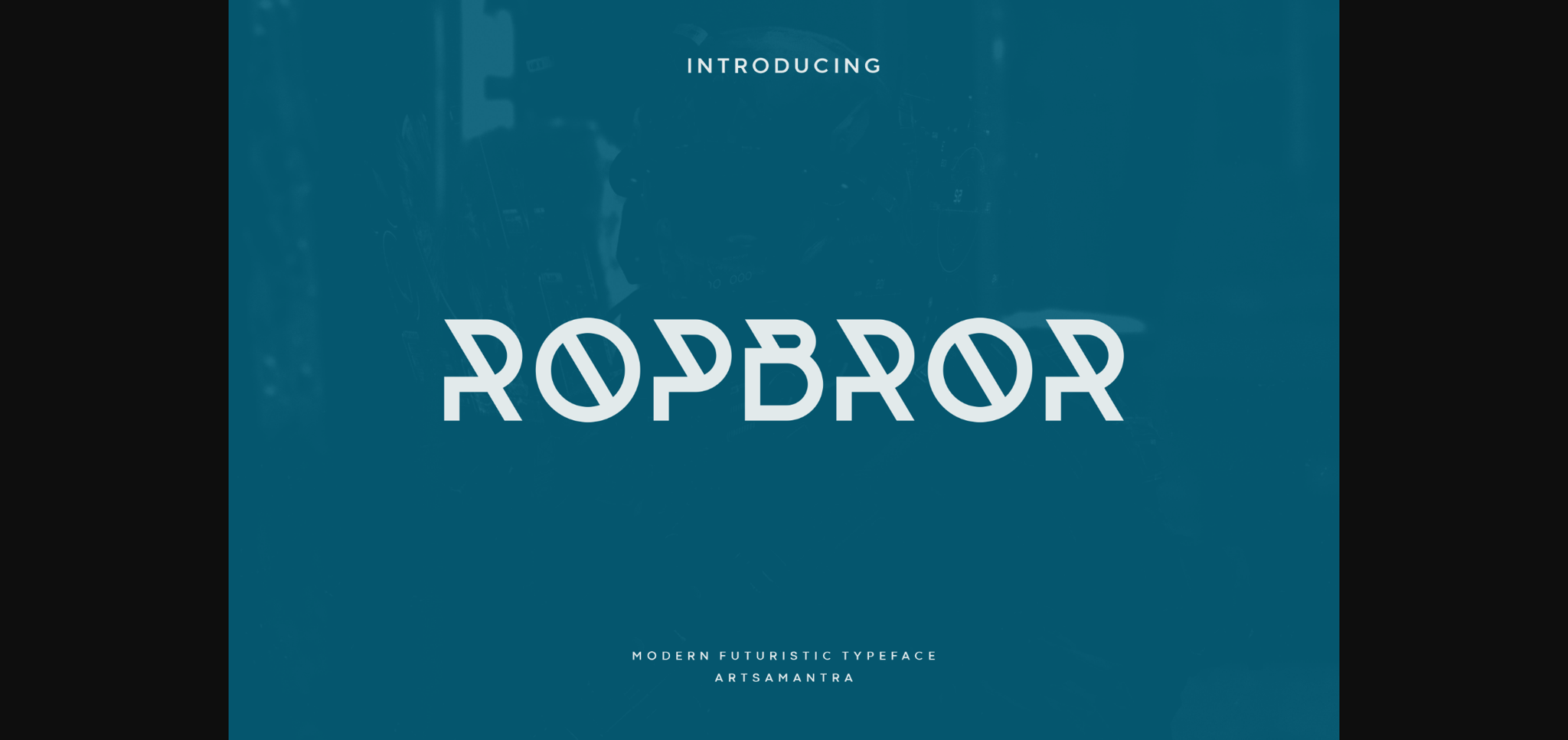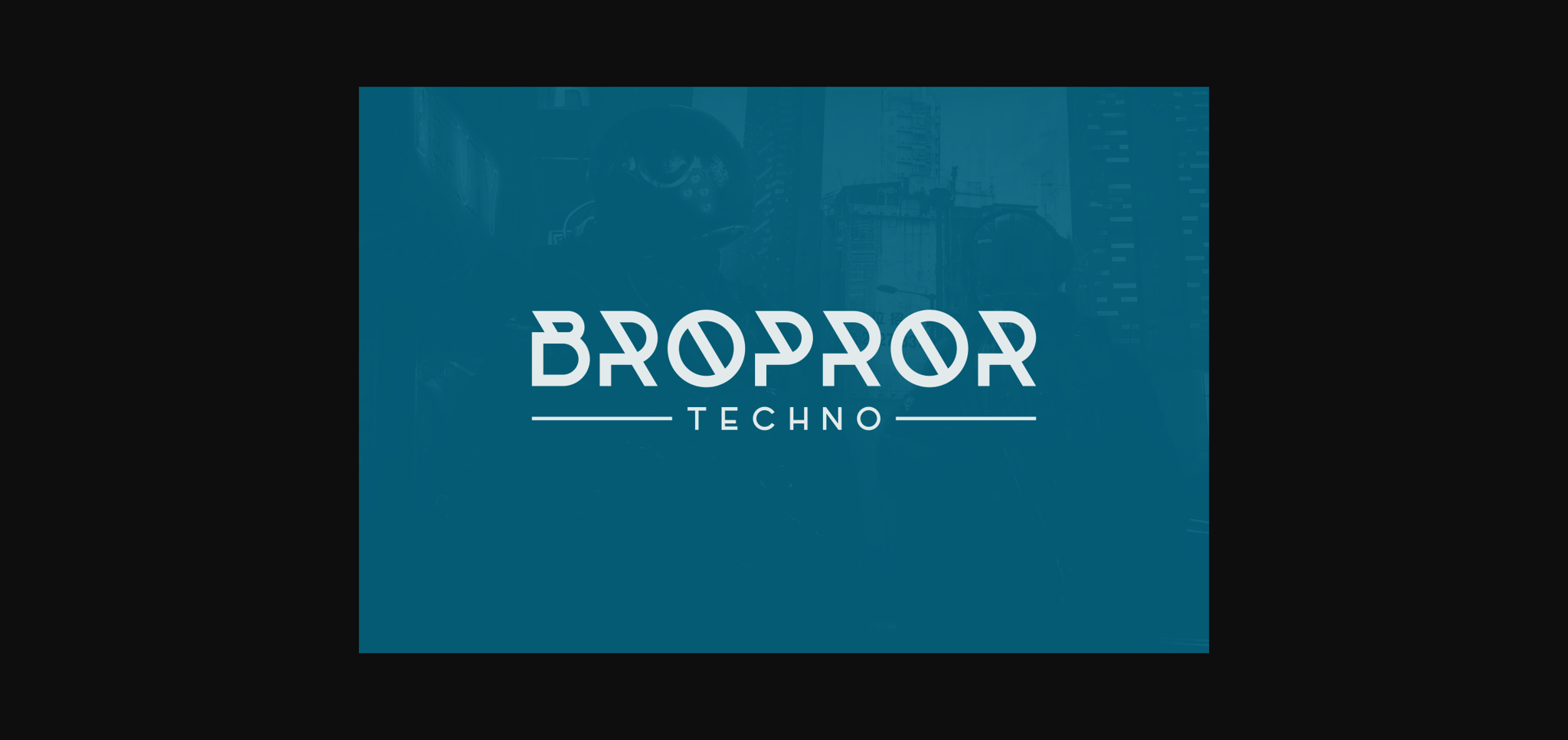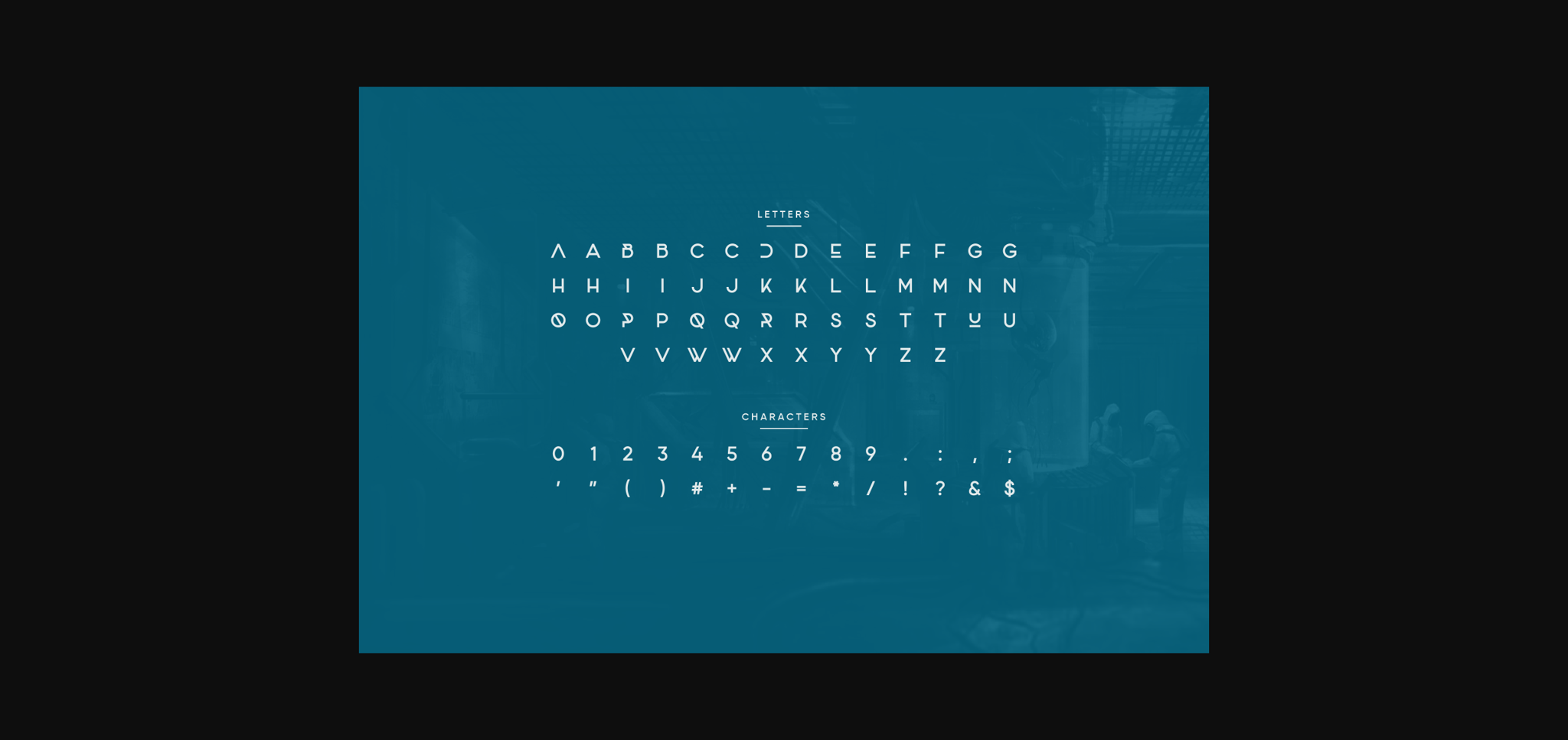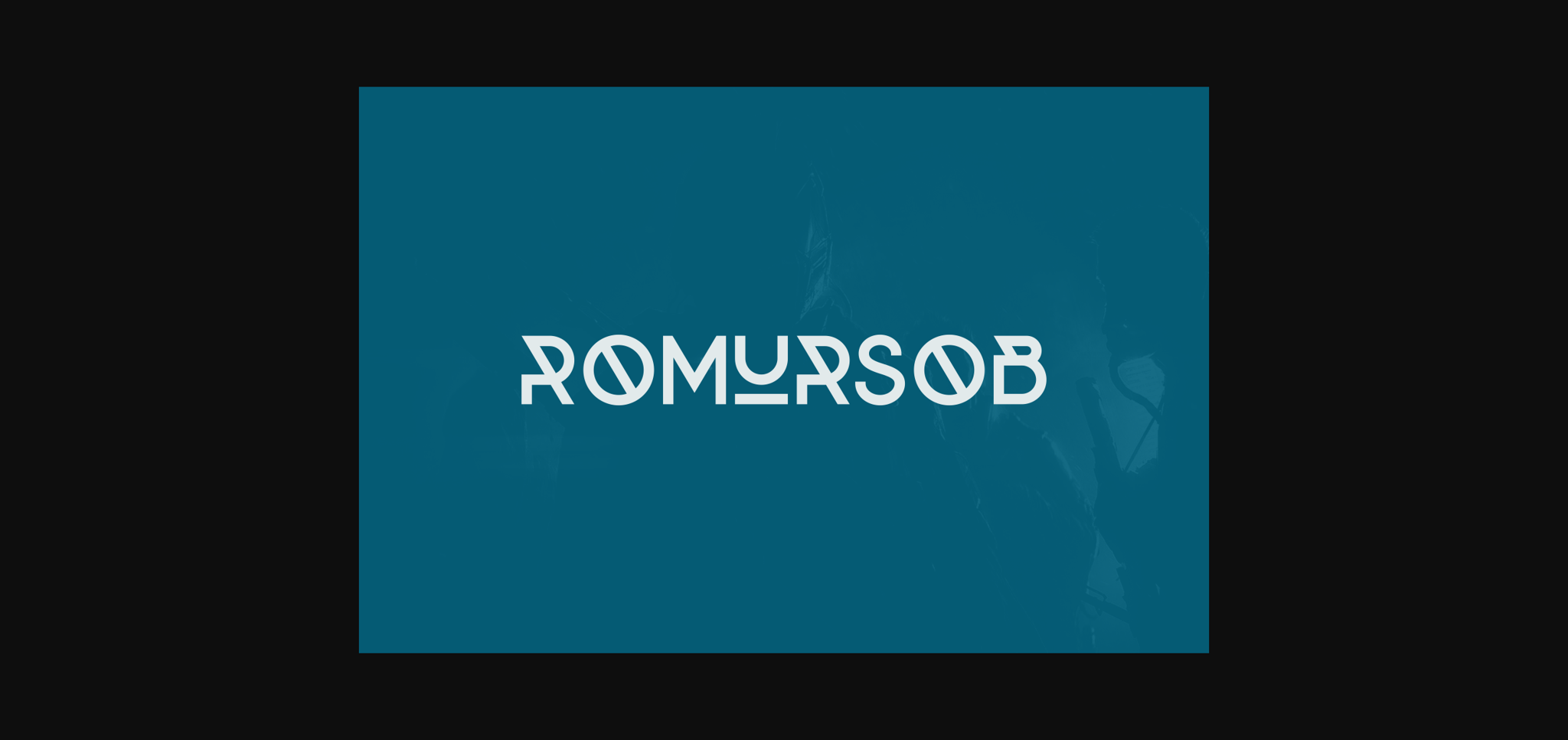
Ropbror Font
About Ropbror Font
Ropbror is a clean and modern futuristic font, coming with unique all-caps. The smooth and clean execution gives this font a sleek and elegant look that is perfect for futuristic and sophisticated branding designs. It can easily be adapted to a very large range of projects, so add it to your creative ideas and see how it makes it stand out!